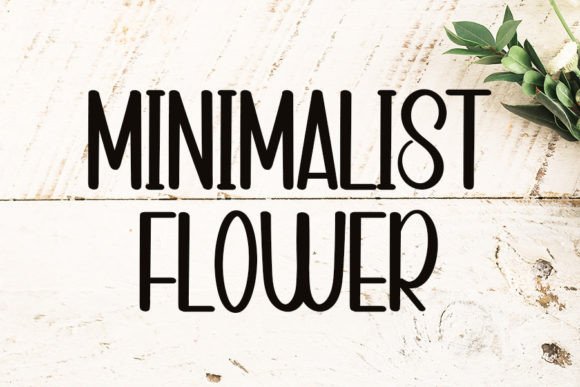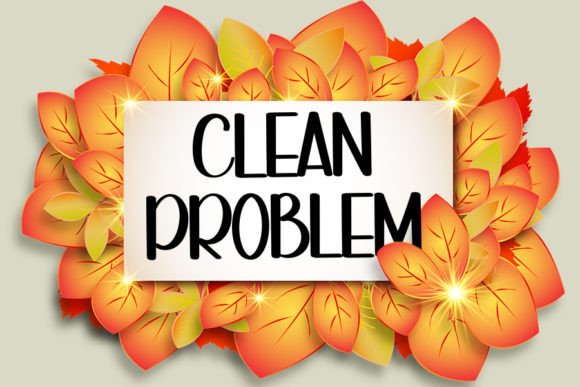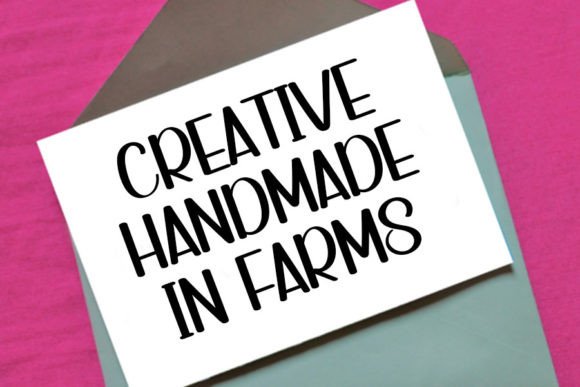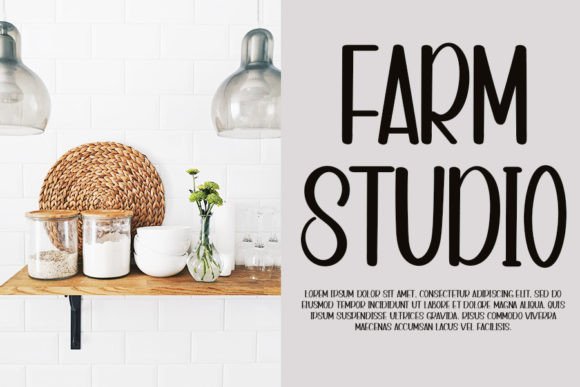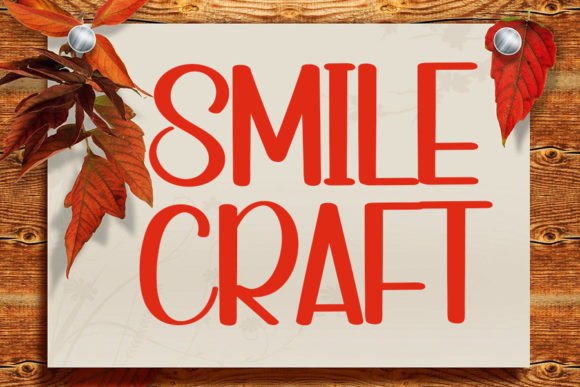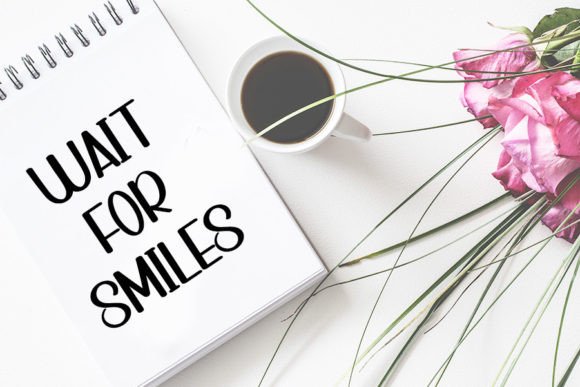
Introducing Farmhouse Font: Elevate Your Designs with Timeless Elegance
In the world of typography, few fonts manage to capture the essence of both classic sophistication and modern flair. Farmhouse Font is one such gem that has been making waves in the design community. This trendy handwritten font boasts a contemporary atmosphere while maintaining impeccable form, drawing inspiration from timeless classic calligraphy. Whether you’re a designer, crafter, or simply someone with a passion for typography, Farmhouse Font is sure to add a touch of elegance and class to any project.
The Inspiration Behind Farmhouse Font
Farmhouse Font is not just another addition to the vast sea of digital fonts; it’s a carefully crafted piece of art. Its roots lie in traditional calligraphy, where the art of beautiful handwriting is paramount. The creators of Farmhouse Font took inspiration from the classic scripts of the past, infusing them with a modern twist to create a font that is both nostalgic and current. This blend of old and new gives Farmhouse Font its unique character, making it stand out in any design.
- Trendy yet Timeless: Farmhouse Font strikes the perfect balance between being trendy and timeless. Its design ensures that it won’t go out of style anytime soon, making it a valuable asset for any designer.
- Versatility: One of the key strengths of Farmhouse Font is its versatility. It can be used for a wide range of projects, from wedding invitations and branding materials to packaging and digital content.
- Elegance and Class: The font adds an undeniable touch of elegance and class to any design. Its sophisticated look makes it ideal for projects that require a level of refinement.
- Contemporary Atmosphere: Despite being inspired by classic calligraphy, Farmhouse Font has a distinctly contemporary feel. This makes it perfect for designers looking to create modern yet sophisticated designs.
Uses of Farmhouse Font
The versatility of Farmhouse Font is one of its most appealing qualities. Here are some of the many ways you can use this beautiful font:
- Wedding and Event Stationery: Create stunning wedding invitations, save-the-date cards, and other event materials with a personal touch.
- Branding and Logo Design: Use Farmhouse Font to give your brand a sophisticated and elegant look. It’s perfect for businesses that want to convey a sense of luxury and quality.
- Packaging Design: Elevate your product packaging with Farmhouse Font. It’s a great way to make your products stand out on the shelves.
- Digital Content: From blog headings to social media graphics, Farmhouse Font can add a touch of elegance to your digital content.
Why Designers and Crafters Love Farmhouse Font
Designers and crafters are always on the lookout for fonts that can help them create unique and captivating designs. Farmhouse Font has quickly become a favorite among creative professionals for several reasons:
- Easy to Read: Despite its elegant and sophisticated look, Farmhouse Font is easy to read, making it practical for a wide range of applications.
- Highly Customizable: The font comes with a range of variations, allowing designers to customize it to fit their project’s specific needs.
- Support for Various Languages: Farmhouse Font supports multiple languages, making it a great choice for international projects.
Farmhouse Font is more than just a font; it’s a design tool that can elevate your projects to new heights. Its unique blend of classic elegance and modern flair makes it a versatile choice for a wide range of applications. Whether you’re designing wedding invitations, branding materials, or digital content, Farmhouse Font is sure to add a touch of sophistication and class. With its ease of use, high customizability, and broad language support, it’s no wonder that Farmhouse Font has become a go-to choice for designers and crafters around the world.
So, if you’re looking to add a touch of timeless elegance to your designs, look no further than Farmhouse Font. It’s an investment in your creativity, sure to pay dividends in the form of stunning, professional-grade designs.